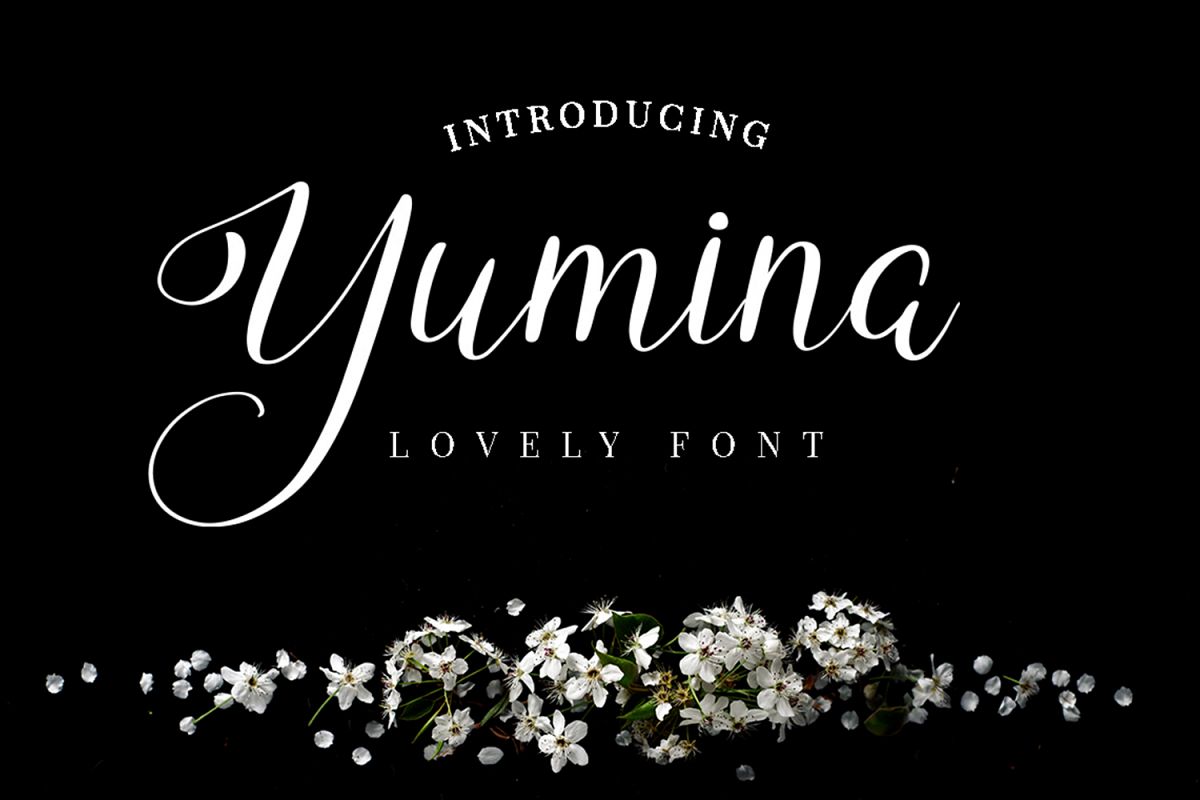
Introducing the lovely script Yumina font!
Very suitable for greeting cards, branding materials, business cards, quotes, posters, and more!
Yumina has more than 249 glyph!!
- Multilingual Support (Afrikaans, Albanian, Danish, Dutch, French, Hungarian, Italian, Indonesian, Norwegian, Polish, Portugese, Spanisch, Swedish, Turkish, Zulu)
- More than 249 glyph